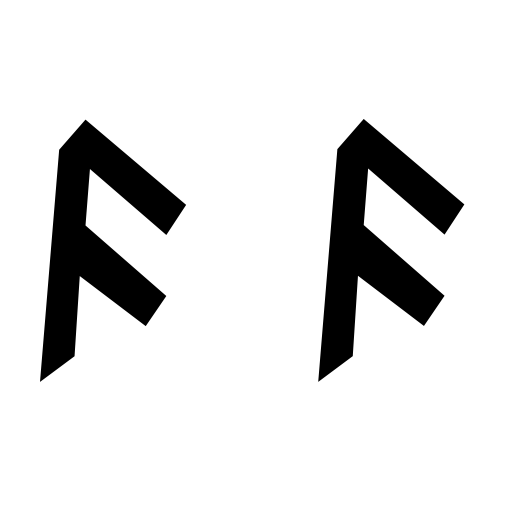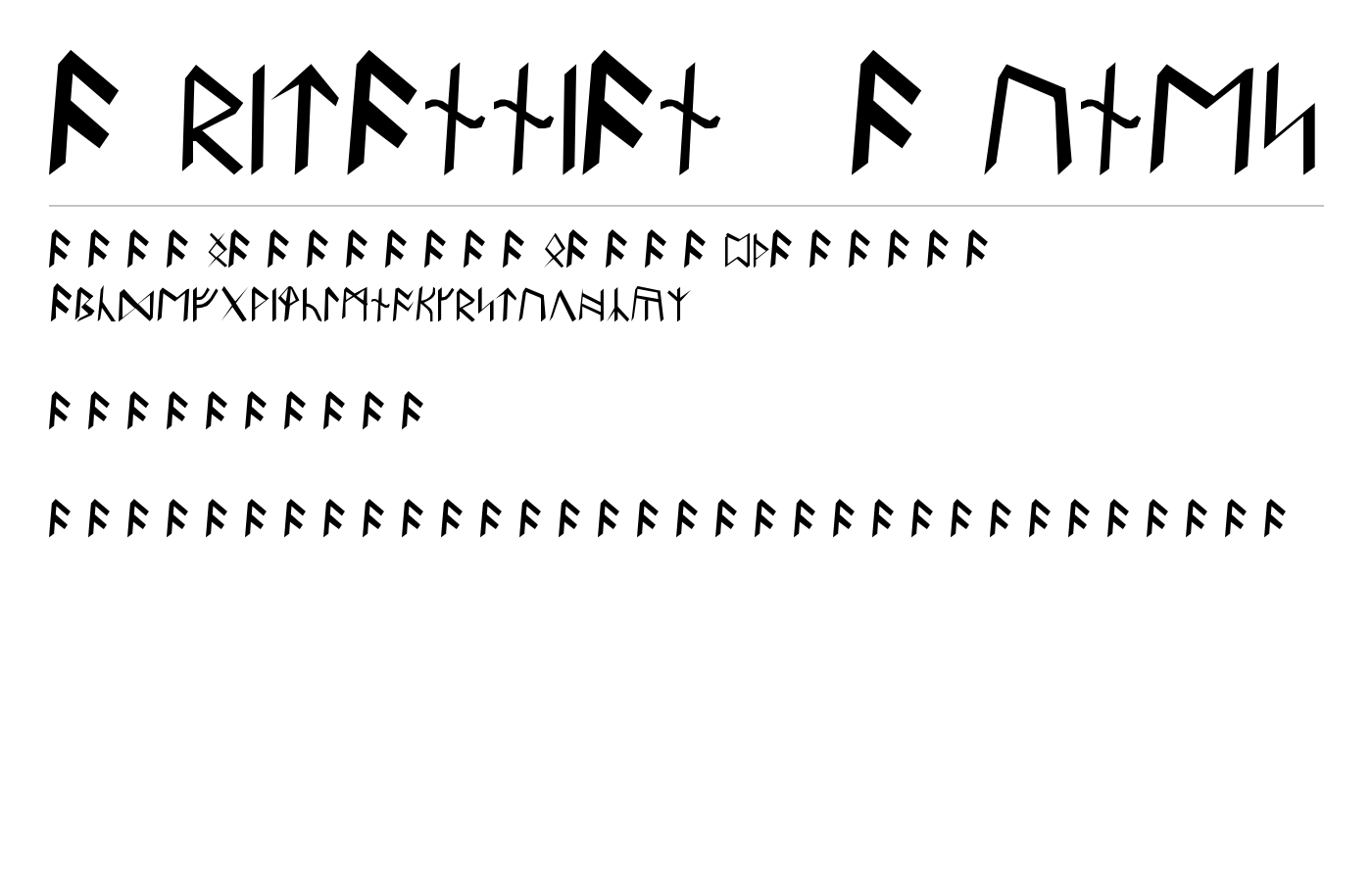
Britannian Runes is a distinctive display font inspired by ancient runic alphabets, featuring sharp, angular strokes and a narrow, tall structure that evokes a mysterious, archaic feel. Its consistent stroke width and geometric shapes give it a bold yet uneven, hand-carved look, making it perfect for themes related to fantasy, history, or mythology. This font works best in logos, posters, and decorative headlines where a strong, ancient atmosphere is desired.
Britannian Runes Font
About Britannian Runes Font